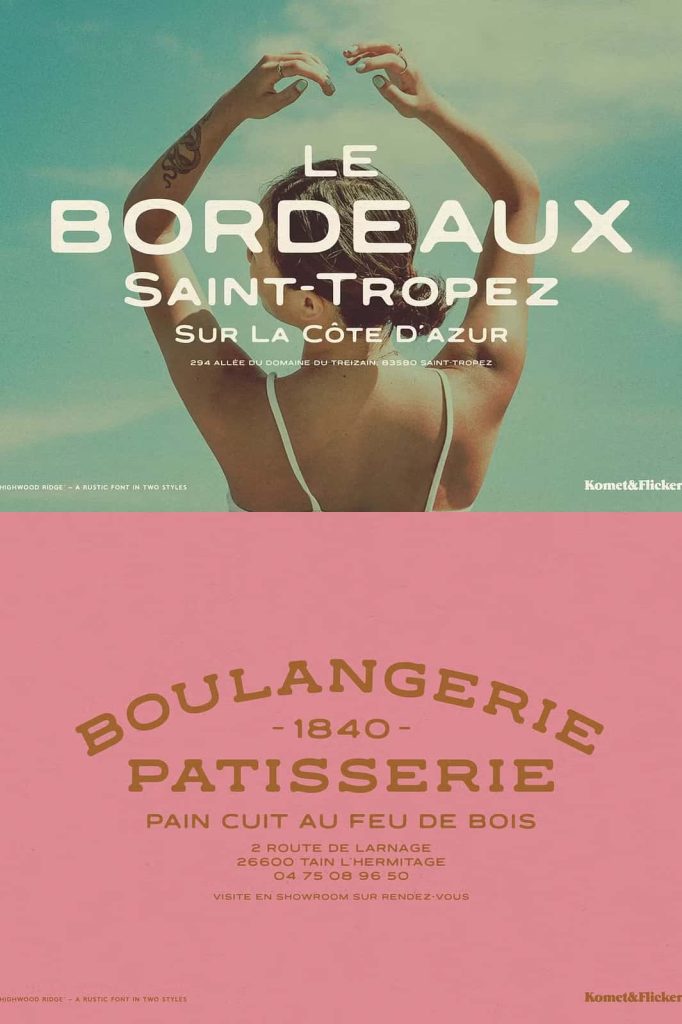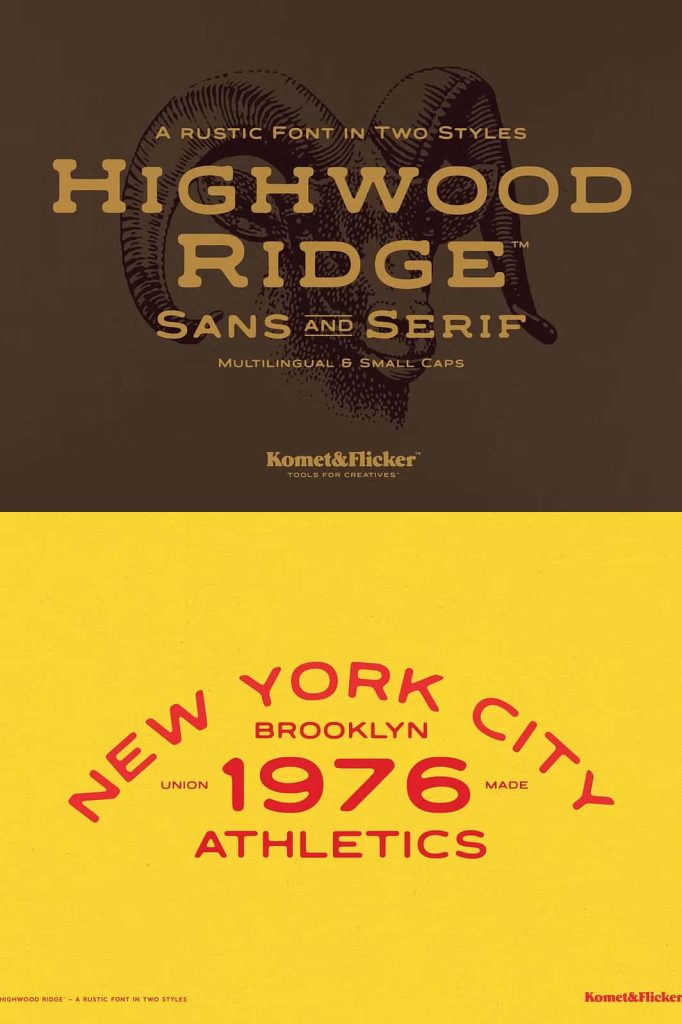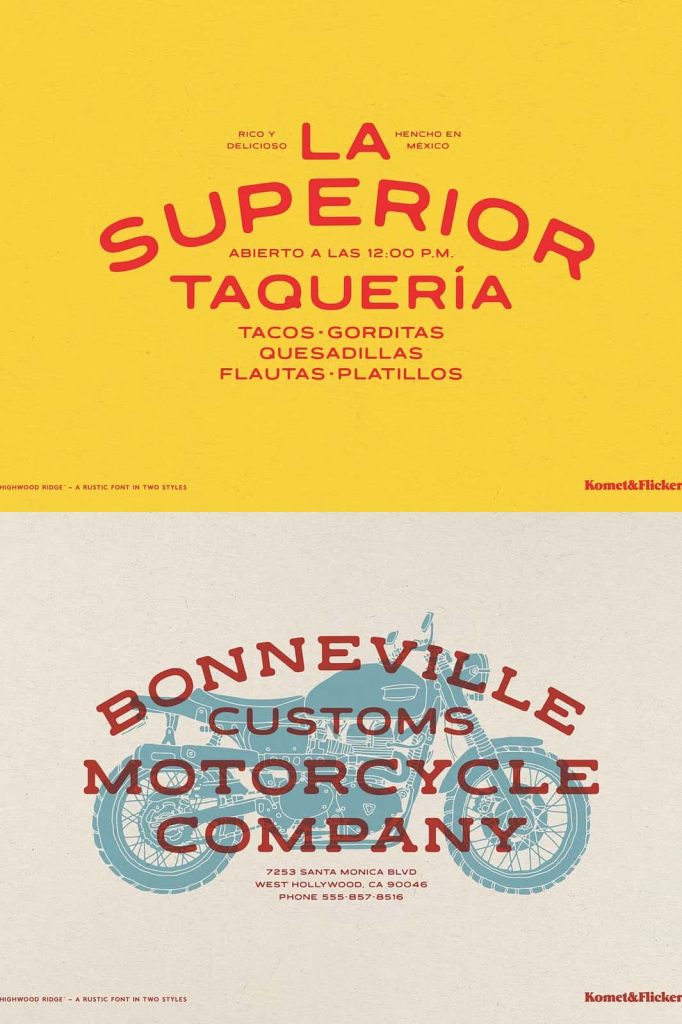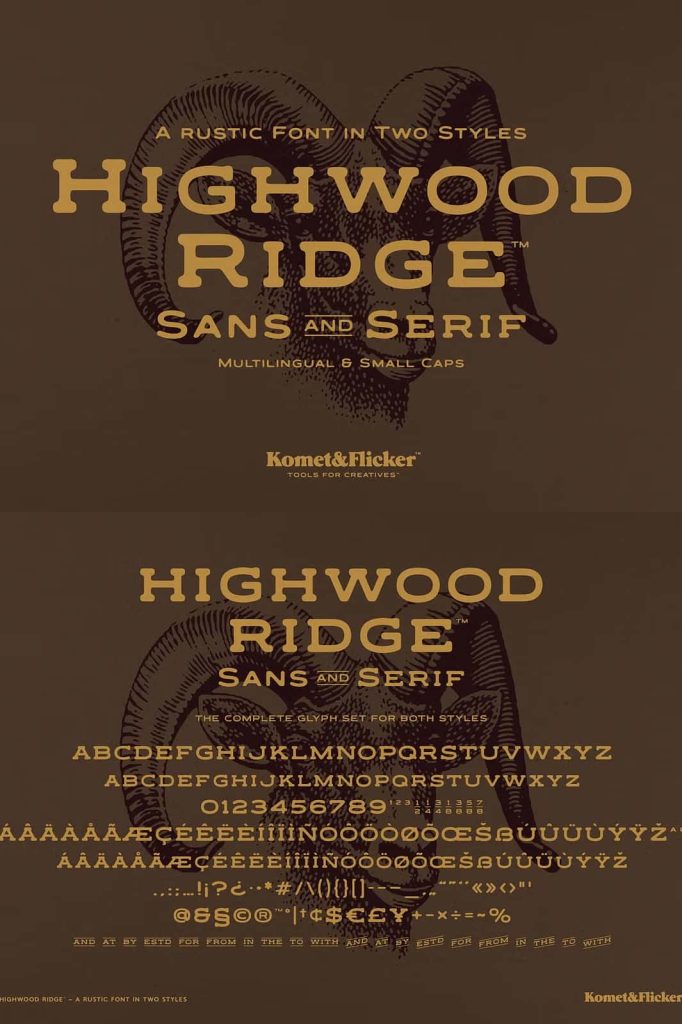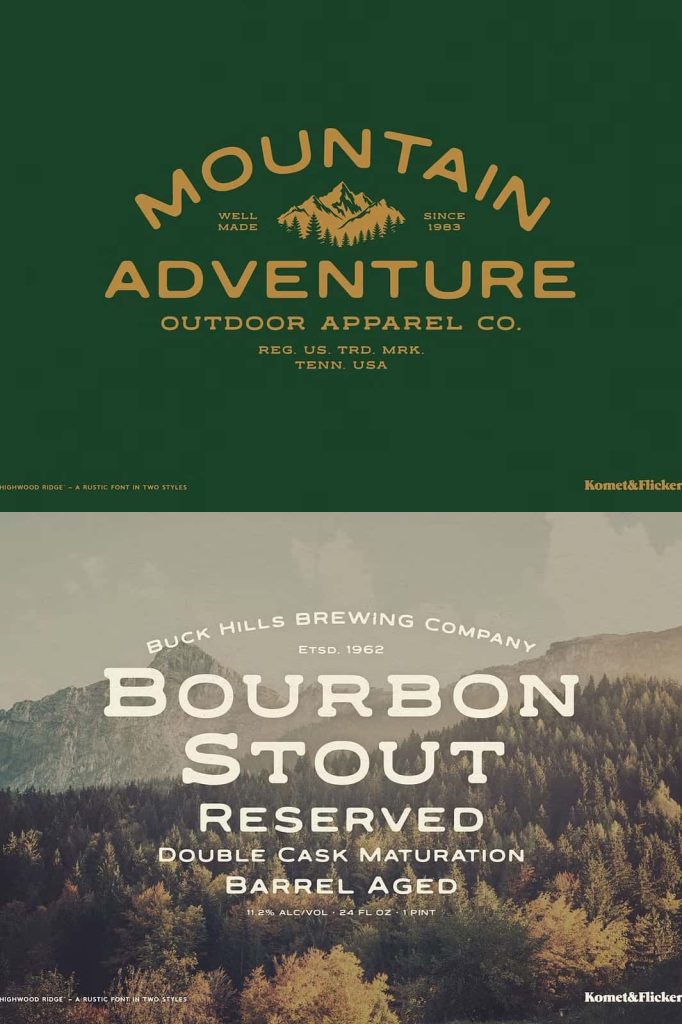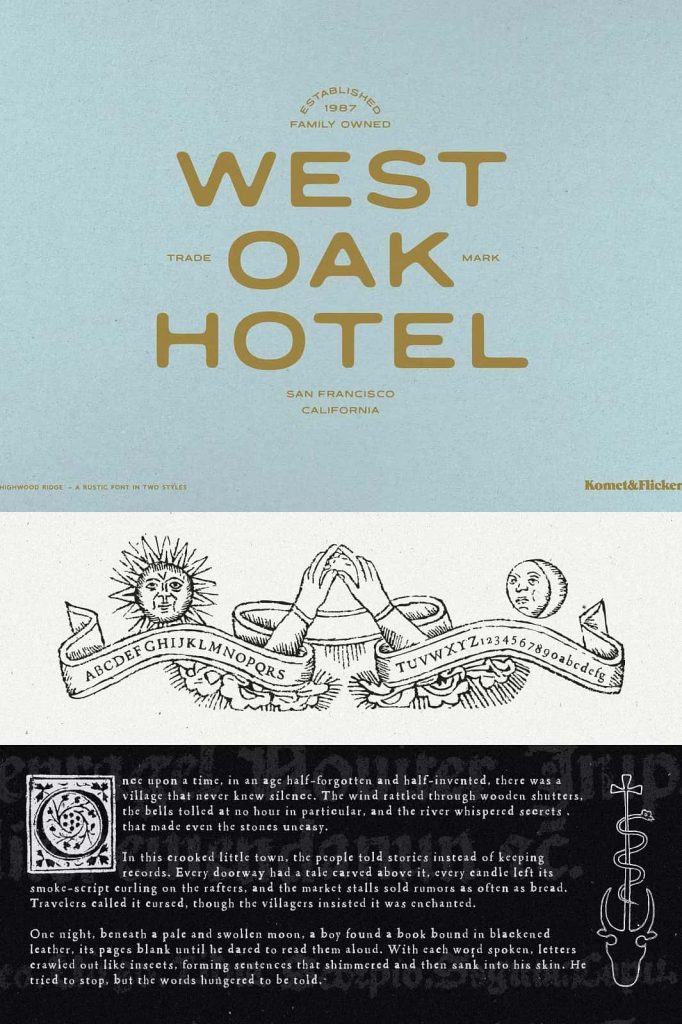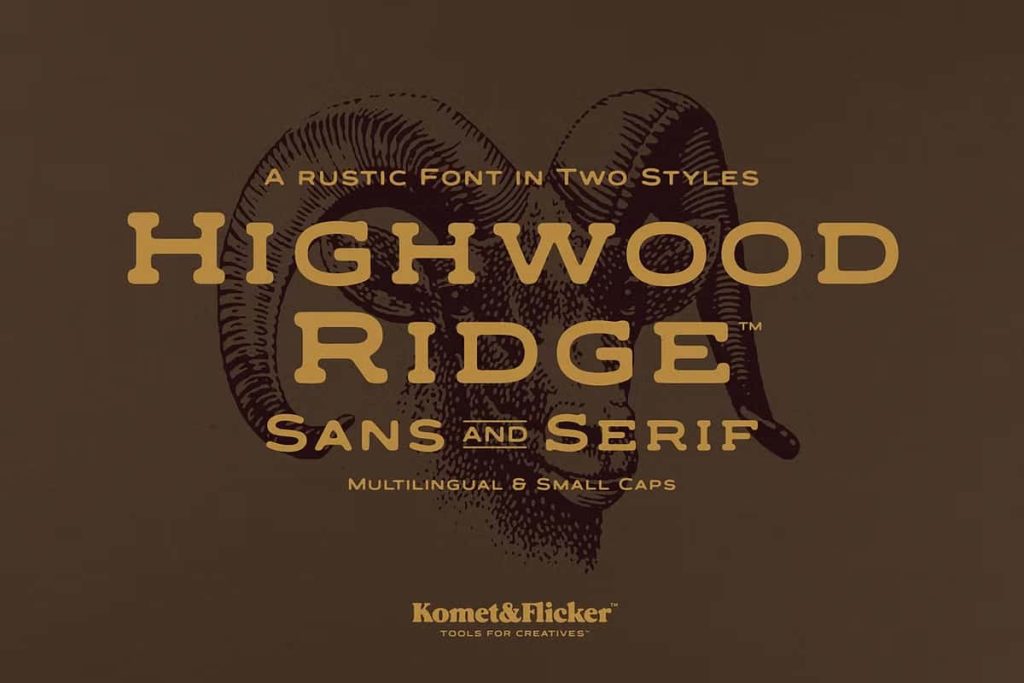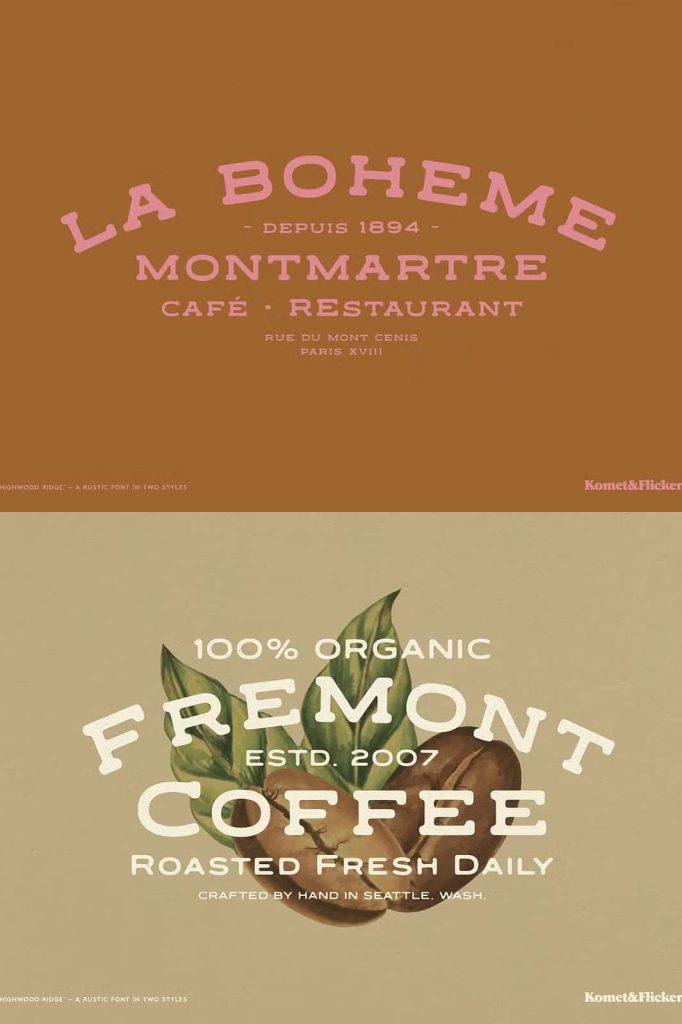
Highwood Ridge Font Family
Highwood Ridge Font Family is a versatile two-font collection designed to combine rugged western character with clean contemporary simplicity. Featuring both a distinctive serif and a complementary sans serif, this font family gives designers the flexibility to create cohesive typography for a wide range of creative projects. Built with caps and small caps styles, Highwood Ridge offers a refined balance between bold personality and practical usability, making it an excellent choice for branding, editorial design, packaging, signage, and digital media.
The serif style embraces the timeless appeal of classic western typography with strong letterforms and distinctive details that evoke handcrafted signs, frontier towns, and vintage Americana. In contrast, the accompanying sans serif introduces a cleaner, more understated appearance that pairs beautifully with the serif while providing excellent readability for supporting text. Together, these two typefaces create a complete design system capable of handling everything from eye-catching headlines to polished secondary typography.
A Complete Font Family for Modern Designers
Rather than relying on a single typeface, Highwood Ridge provides two complementary fonts that work seamlessly together. This combination allows designers to establish clear visual hierarchy while maintaining a consistent style throughout an entire project.
The serif font creates bold, memorable headlines and logos that immediately capture attention, while the sans serif offers a clean foundation for subheadings, descriptions, captions, and body text. By using both styles together, you can create layouts that feel balanced, professional, and visually engaging.
This flexibility makes Highwood Ridge an excellent addition to any designer’s font library, especially for projects that require both decorative display typography and functional supporting text.
Western-Inspired Serif with Timeless Character
The serif style draws inspiration from traditional western typography while maintaining a polished modern appearance. Its carefully crafted letterforms communicate strength, authenticity, and craftsmanship without feeling outdated or overly decorative.
Whether you are designing for outdoor brands, ranch-inspired businesses, whiskey labels, country events, or vintage packaging, the serif font delivers an unmistakable sense of heritage and adventure. Its bold personality creates memorable typography that stands confidently across both print and digital applications.
The western influence remains sophisticated enough to complement contemporary branding while preserving the rustic charm that makes the style so appealing.
Clean Sans Serif for Maximum Versatility
Complementing the expressive serif is a clean sans serif designed to provide simplicity and excellent readability. The minimalist construction allows it to support the serif without competing for attention, making it perfect for longer text, product information, website content, brochures, and editorial layouts.
The contrast between the two styles creates visual harmony. Designers can easily combine bold serif headlines with modern sans serif paragraphs to produce elegant compositions that feel cohesive and professionally balanced.
This pairing reduces the need to search for compatible fonts, allowing you to build complete design systems using a single font family.
Caps and Small Caps for Professional Typography
Highwood Ridge includes both capital letters and small caps, giving designers greater creative control over typography. Small caps provide a refined alternative to standard uppercase text, making them especially useful for subtitles, navigation menus, packaging details, editorial headings, and sophisticated branding elements.
This feature enhances visual consistency while offering additional styling options that improve hierarchy and readability across complex layouts.
Perfect for a Wide Variety of Creative Projects
Thanks to its combination of western-inspired character and modern simplicity, Highwood Ridge performs exceptionally well across numerous creative industries.
Brand Identity and Logo Design
Create memorable logos and brand identities that combine authenticity with professionalism. Highwood Ridge works beautifully for outdoor companies, craft businesses, cafés, restaurants, breweries, fashion labels, and lifestyle brands.
Packaging and Product Labels
Design premium packaging for coffee, whiskey, gourmet food, cosmetics, handmade goods, apparel, and artisan products. The serif adds character while the sans serif ensures product information remains clear and readable.
Editorial Design
Develop magazines, books, brochures, catalogs, journals, and promotional publications with typography that offers both expressive headlines and clean body text.
Posters and Signage
Create impactful posters, storefront signs, event graphics, banners, and exhibition displays with typography inspired by classic western aesthetics while maintaining a polished contemporary appearance.
If you are looking for a font family that blends rugged authenticity with contemporary sophistication, Highwood Ridge Font Family is an outstanding choice. Its versatile pairing of serif and sans serif styles allows you to create designs that feel confident, timeless, and visually distinctive across both print and digital media.